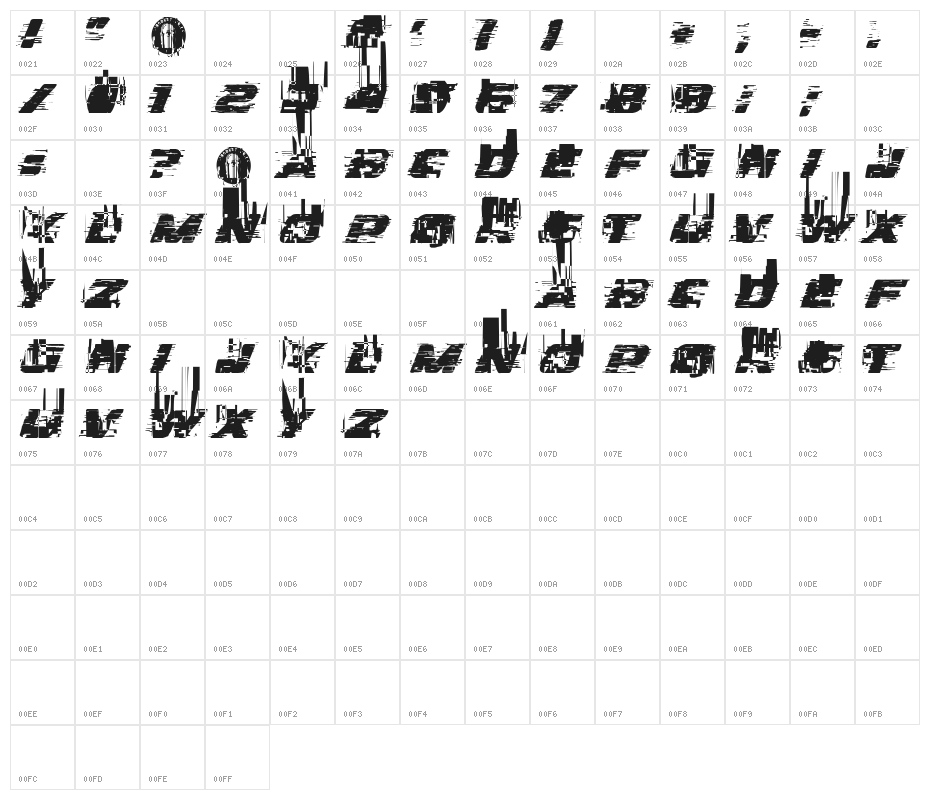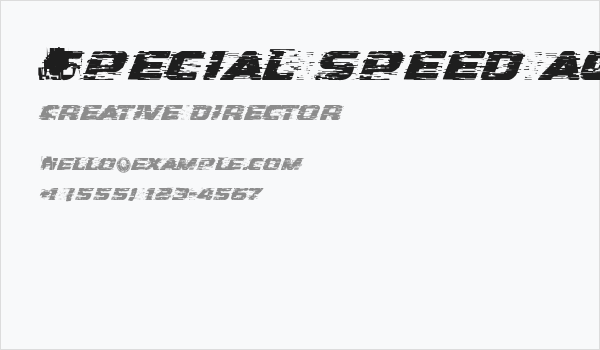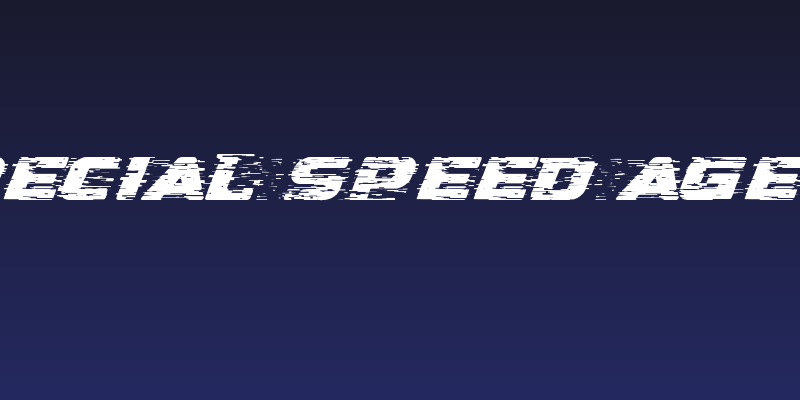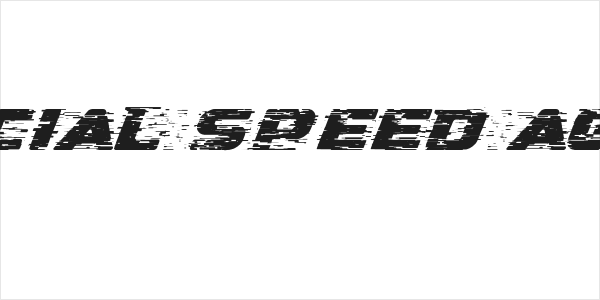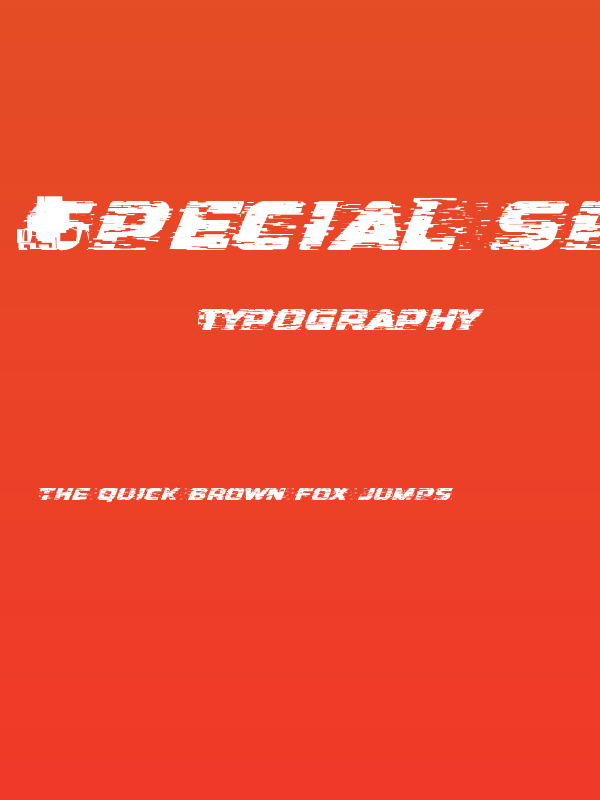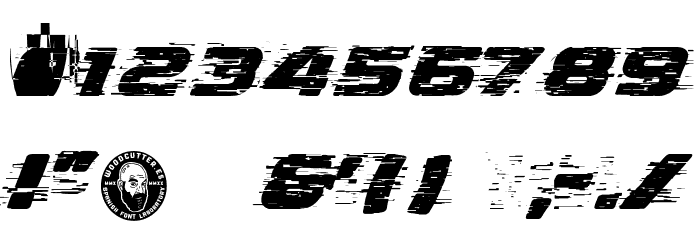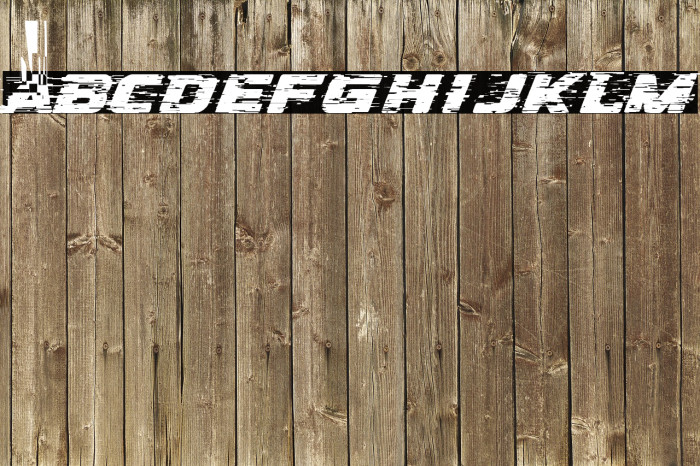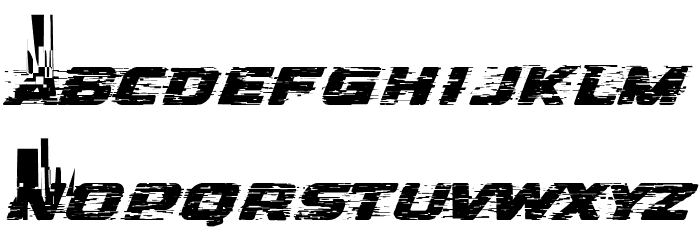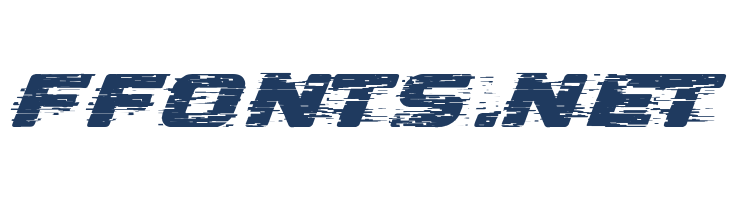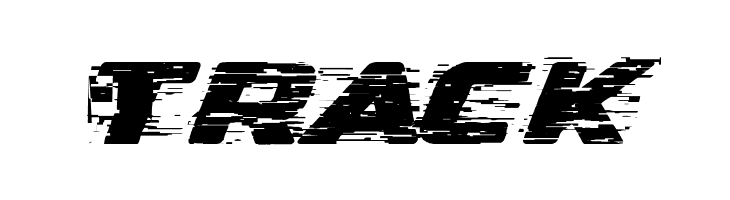
Special Speed Agent Font
Special Speed Agent Description
This font features a dynamic, high-energy design with a distressed, glitch-like appearance. Each character appears as if it's in motion, with horizontal streaks and a fragmented look that suggests speed and urgency. The bold, italicized letters are designed to capture attention, making them ideal for projects that require a sense of movement or excitement. The font's unique style is both modern and edgy, perfect for contemporary designs that need a standout typeface.
| Proposed Projects | Ideal for sports branding, action movie posters, video game titles, and dynamic advertising campaigns. |